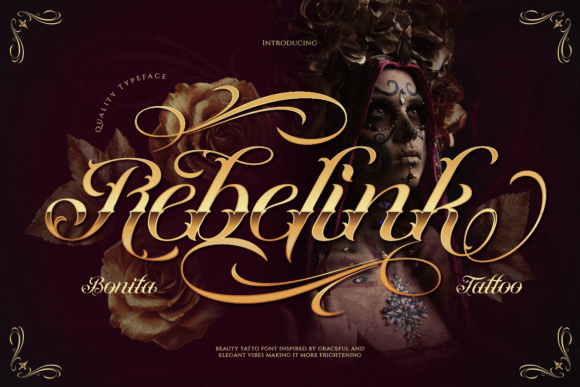
Rebelink Font: A Beautifully Crafted Script Tattoo Font with a Touch of Blackletter and Baroque Flourish
In the world of typography, fonts play a crucial role in conveying the tone and aesthetic of a design. For creative projects that require a unique and eye-catching look, the Rebelink font is an excellent choice. In this article, we’ll introduce you to the Rebelink font, its features, and uses, and explore how it can elevate your designs.
What is Rebelink Font?
Rebelink is a beautifully crafted script tattoo font that combines the elegance of blackletter and baroque styles. The letterforms are designed with sharp contrast in strokes and dramatic swashes, giving it a theatrical and elegant look. This font is perfect for designers who want to add a touch of sophistication and drama to their designs.
Key Features of Rebelink Font
Rebelink font comes with a wide range of features that make it an excellent choice for creative projects. Some of its key features include:
- Stylistic Alternates: Rebelink font offers a wide range of stylistic alternates, making it easy to customize and perfect for exploration in creative projects.
- Sharp Contrast in Strokes: The letterforms are designed with sharp contrast in strokes, giving it a dramatic and elegant look.
- Dramatic Swashes: The font features dramatic swashes that add a touch of sophistication and drama to your designs.
- Blackletter and Baroque Influence: Rebelink font combines the elegance of blackletter and baroque styles, making it perfect for designs with a gothic or Latin-inspired theme.
Uses of Rebelink Font
Rebelink font is perfect for display purposes, such as:
- Tattoo Studio Logos: The font’s elegant and theatrical look makes it an excellent choice for tattoo studio logos.
- Band/Album Covers: Rebelink font is perfect for metal or Latin rap band/album covers, adding a touch of sophistication and drama to your designs.
- Gothic or Latin-Inspired Themes: The font’s blackletter and baroque influence makes it perfect for designs with a gothic or Latin-inspired theme.
Why Choose Rebelink Font?
There are several reasons why you should choose Rebelink font for your creative projects:
- Unique and Eye-Catching: Rebelink font is a unique and eye-catching font that will make your designs stand out.
- Elegant and Theatrical: The font’s elegant and theatrical look makes it perfect for designs that require a touch of sophistication and drama.
- Customizable: Rebelink font offers a wide range of stylistic alternates, making it easy to customize and perfect for exploration in creative projects.
- High-Quality: The font is designed with high-quality and precision, ensuring that it looks great in any design.
Tips for Using Rebelink Font
Here are some tips for using Rebelink font in your designs:
- Use it for Display Purposes: Rebelink font is perfect for display purposes, such as headings, titles, and logos.
- Experiment with Stylistic Alternates: The font offers a wide range of stylistic alternates, so experiment with different styles to find the one that works best for your design.
- Pair it with Other Fonts: Rebelink font can be paired with other fonts to create a unique and eye-catching look.
In conclusion, Rebelink font is a beautifully crafted script tattoo font that combines the elegance of blackletter and baroque styles. Its unique and eye-catching look makes it perfect for creative projects that require a touch of sophistication and drama. With its wide range of stylistic alternates, Rebelink font is easy to customize and perfect for exploration in creative projects.